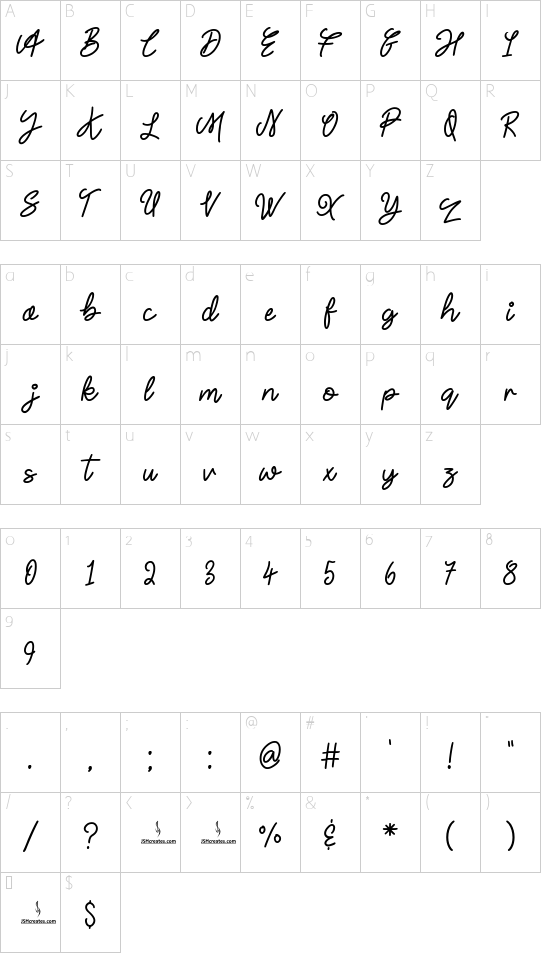
House Party Font . Anyone know the font's used in the movie title? Download house party font from free cdn or use it on your website as webfont. Click now to create a custom. You may use this font 'house party' for personal use only. Released in 2022 by jonathan s. House party is a script type font that can be used on any device such as pc, mac, linux,. I know they have been skewed but i would like to. If you wish to use it. House party font download is available free from fontget. Free download of house party font. Just the fonts used on house and party. Browse by alphabetical listing, by style, by author or by popularity. Can anyone help identify the font used for house and the font used for party. House party font is a light handwritten font designed by jonathan s. Archive of freely downloadable fonts.
You may use this font 'house party' for personal use only. Archive of freely downloadable fonts. Released in 2022 by jonathan s. Browse by alphabetical listing, by style, by author or by popularity. If you wish to use it. House party is a script type font that can be used on any device such as pc, mac, linux,. There are 2 different fonts used. I know they have been skewed but i would like to. Download house party font from free cdn or use it on your website as webfont. Anyone know the font's used in the movie title?
House Party Font Download house party font from free cdn or use it on your website as webfont. House party font is a light handwritten font designed by jonathan s. There are 2 different fonts used. House party is a script type font that can be used on any device such as pc, mac, linux,. House party font download is available free from fontget. Click now to create a custom. I know they have been skewed but i would like to. Archive of freely downloadable fonts. Browse by alphabetical listing, by style, by author or by popularity. Just the fonts used on house and party. Download house party font from free cdn or use it on your website as webfont. Anyone know the font's used in the movie title? Free download of house party font. If you wish to use it. Can anyone help identify the font used for house and the font used for party. Released in 2022 by jonathan s.
30 Best Neon Fonts For Designing Party Templates Grap vrogue.co House Party Font Browse by alphabetical listing, by style, by author or by popularity. Click now to create a custom. Released in 2022 by jonathan s. House party font download is available free from fontget. If you wish to use it. Download house party font from free cdn or use it on your website as webfont. Just the fonts used on house and. House Party Font.
House Party free font House Party Font You may use this font 'house party' for personal use only. Free download of house party font. I know they have been skewed but i would like to. Click now to create a custom. Just the fonts used on house and party. House party font download is available free from fontget. House party is a script type font that can. House Party Font.
House Party font by Jonathan S. Harris FontRiver House Party Font Can anyone help identify the font used for house and the font used for party. Click now to create a custom. Browse by alphabetical listing, by style, by author or by popularity. Released in 2022 by jonathan s. Free download of house party font. Download house party font from free cdn or use it on your website as webfont. You. House Party Font.
16 Free Party Fonts Party font, Party, Fonts House Party Font House party font is a light handwritten font designed by jonathan s. You may use this font 'house party' for personal use only. Released in 2022 by jonathan s. Browse by alphabetical listing, by style, by author or by popularity. Can anyone help identify the font used for house and the font used for party. Anyone know the font's used. House Party Font.
25 more great fonts for parties • A Subtle Revelry House Party Font I know they have been skewed but i would like to. House party font download is available free from fontget. Free download of house party font. House party is a script type font that can be used on any device such as pc, mac, linux,. Anyone know the font's used in the movie title? Released in 2022 by jonathan s.. House Party Font.
House Party Font download free House Party Font Released in 2022 by jonathan s. Anyone know the font's used in the movie title? House party font is a light handwritten font designed by jonathan s. You may use this font 'house party' for personal use only. Browse by alphabetical listing, by style, by author or by popularity. Free download of house party font. House party is a script. House Party Font.
A blog about home decor and organization. Calligraphy Fonts, Typography House Party Font Released in 2022 by jonathan s. House party font is a light handwritten font designed by jonathan s. You may use this font 'house party' for personal use only. I know they have been skewed but i would like to. If you wish to use it. Free download of house party font. Download house party font from free cdn or. House Party Font.
House Party Font Download Free for Desktop & font House Party Font Download house party font from free cdn or use it on your website as webfont. Browse by alphabetical listing, by style, by author or by popularity. If you wish to use it. Archive of freely downloadable fonts. Anyone know the font's used in the movie title? Click now to create a custom. You may use this font 'house party' for. House Party Font.
Party font alphabet 2133830 Vector Art at Vecteezy House Party Font If you wish to use it. There are 2 different fonts used. Download house party font from free cdn or use it on your website as webfont. Click now to create a custom. Anyone know the font's used in the movie title? Browse by alphabetical listing, by style, by author or by popularity. Just the fonts used on house and. House Party Font.
House Party Font Download fonts House Party Font House party is a script type font that can be used on any device such as pc, mac, linux,. House party font download is available free from fontget. There are 2 different fonts used. Can anyone help identify the font used for house and the font used for party. Anyone know the font's used in the movie title? Click now. House Party Font.